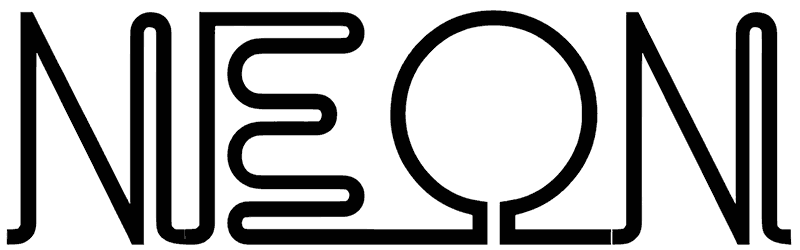
Neon Font
If you are passionate about having a versatile techno font, then Neon really deserves to be on your radar. This neon font has the true potential to bring a sense of modernity, futuristic, eerie, and grunge to any kind of artwork.
Due to the stretched and elongated characters of this all-caps font, it would be ideal for designing movie posters, video game banners, brochures, book covers, or headlines. Needless to say that it doesn’t support numbers.